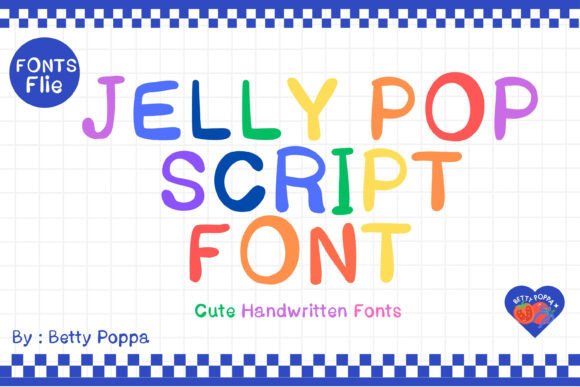
Jelly Pop Script: A Bubbly Font for Fun Projects
Finding a typeface that genuinely captures a feeling of joy can be a challenge. Most script fonts lean heavily into elegance or formality, while many display fonts can feel overly rigid or cartoonish. Jelly Pop Script occupies a unique and valuable space between these extremes. It’s a handwritten font built on a foundation of rounded, bubbly strokes that give every letterform a soft, approachable, and energetic quality. The slight bounce in its baseline isn’t chaotic; it’s a controlled, rhythmic movement that injects a sense of playful momentum into any text it touches.
This isn't a font that tries to mimic traditional calligraphy or a child's scrawl. Its personality is rooted in modern, cheerful aesthetics often associated with kawaii culture and contemporary stationery design. The letters are generously spaced, ensuring clarity even at smaller sizes, and the overall impression is one of warmth and accessibility. As a premium font, Jelly Pop Script is crafted with attention to detail, including ligatures and alternate characters that help maintain a natural, handwritten flow, preventing the repetitive look that can plague lesser script typefaces.
Where This Creative Font Truly Shines
The true test of any design asset is its versatility across real-world applications. Jelly Pop Script excels in projects where the primary goal is to connect with an audience on an emotional, often lighthearted, level. It’s a natural fit for the world of editorial design aimed at younger readers, such as chapter headings in children’s books, activity book titles, and engaging educational worksheets. The font’s inherent readability makes it a practical choice here, ensuring content is both fun and easy to consume.
Beyond the classroom, its utility extends powerfully into branding and marketing. Imagine a small business selling handmade soaps, baked goods, or craft supplies. Using Jelly Pop Script in its logo design and packaging design immediately communicates a brand identity that is friendly, artisanal, and full of personality. It works beautifully for product labels, thank-you cards tucked into orders, and the header graphics on an e-commerce site. In the digital realm, it’s a standout choice for social media graphics, blog post titles, and digital planners where a touch of whimsy can dramatically increase engagement. It’s the kind of creative font that makes a viewer smile before they’ve even read the words.
Integrating Jelly Pop Script into Your Design Workflow
Adopting a new typeface requires more than just liking how it looks in a preview. The first step is always to evaluate fit. Jelly Pop Script is a display font at its core. Its strengths are in headlines, short phrases, and accent text where its personality can be fully appreciated. Using it for long paragraphs of body copy would likely overwhelm the reader and sacrifice legibility. Its role is to add flair and set a tone, not to carry the weight of extensive reading.
This leads to the crucial practice of font pairing. The bubbly, energetic nature of Jelly Pop Script needs a calm, stable partner to create a balanced and professional visual hierarchy. A clean sans serif font is almost always an excellent companion. Think of a simple, geometric sans serif like Poppins, Montserrat, or Lato for your body text. The contrast allows Jelly Pop Script to pop for headlines while the sans serif ensures the supporting content remains clear and readable. For a slightly different feel, pairing it with a simple, sturdy serif font can create a more grounded, yet still friendly, aesthetic. Always test your pairings in context—create a mock-up of a social media post or a label to see how the fonts interact in terms of size, weight, and spacing.
Ultimately, Jelly Pop Script is more than just a collection of letters; it’s a tool for injecting a specific, positive emotion into your work. For the entrepreneur building a brand identity, the educator creating engaging materials, or the designer crafting memorable web design elements, it offers a reliable way to achieve a look that is both professionally executed and genuinely delightful. It proves that in modern typography, warmth and whimsy can be powerful components of effective communication.